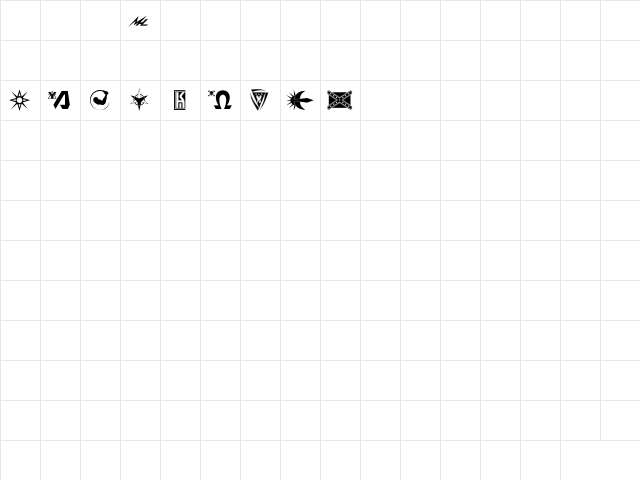
Terran Bold Font Preview
Terran Bold
Terran Bold Font Details
Design Context for Terran Typeface
Terran is a composed and adaptable typeface that performs quietly and consistently across a wide range of design contexts. The heavy weight commands attention and anchors typographic hierarchies.
Pro Tip: Use Terran in both headline and body roles to test its range before committing to a single application.